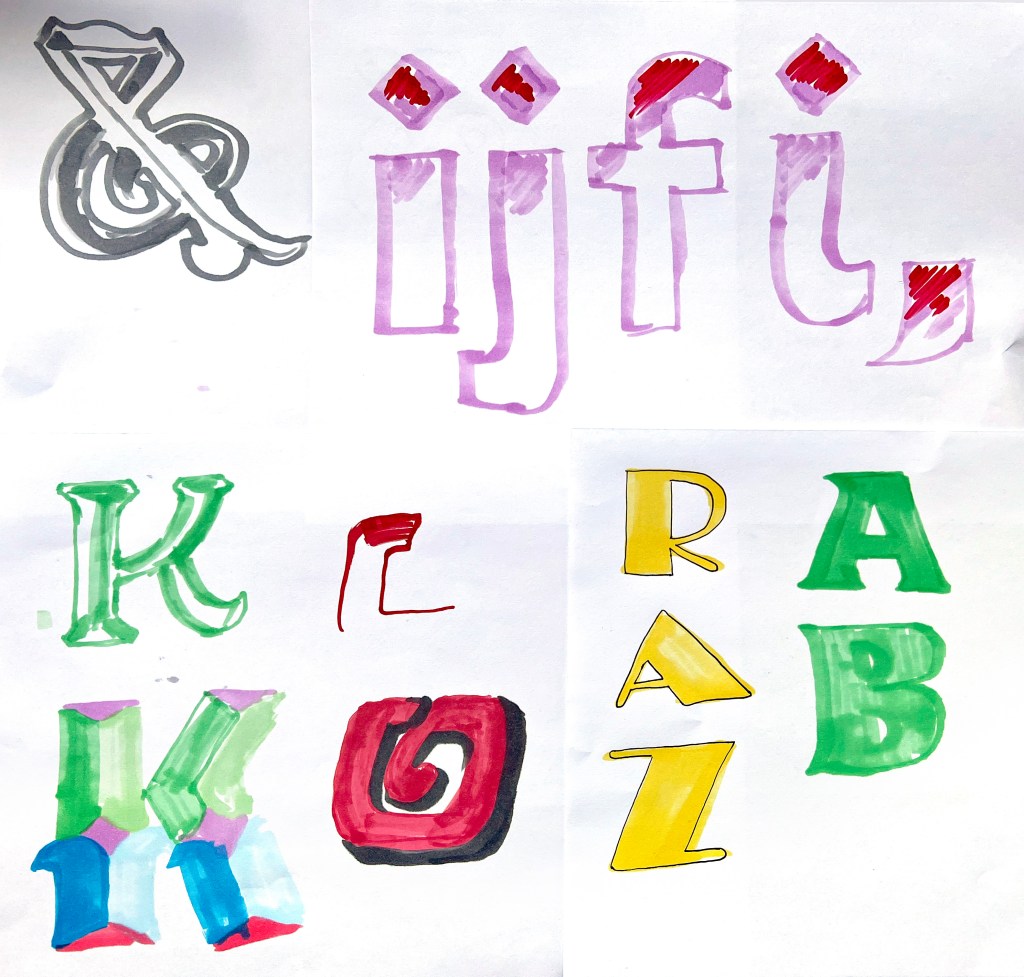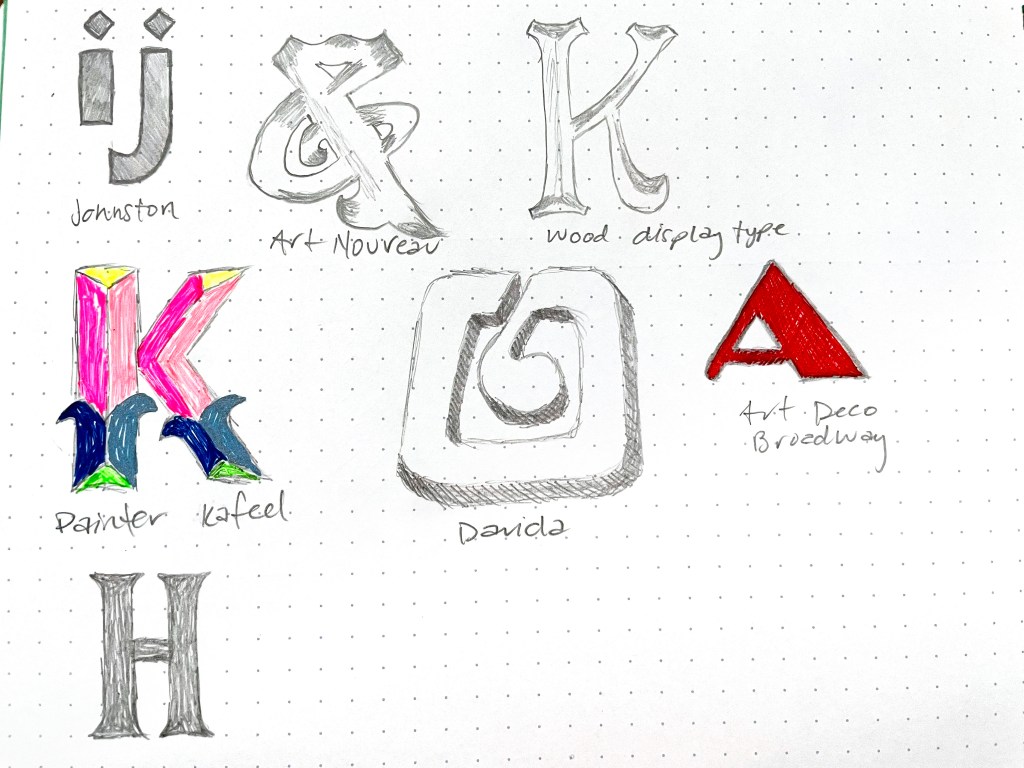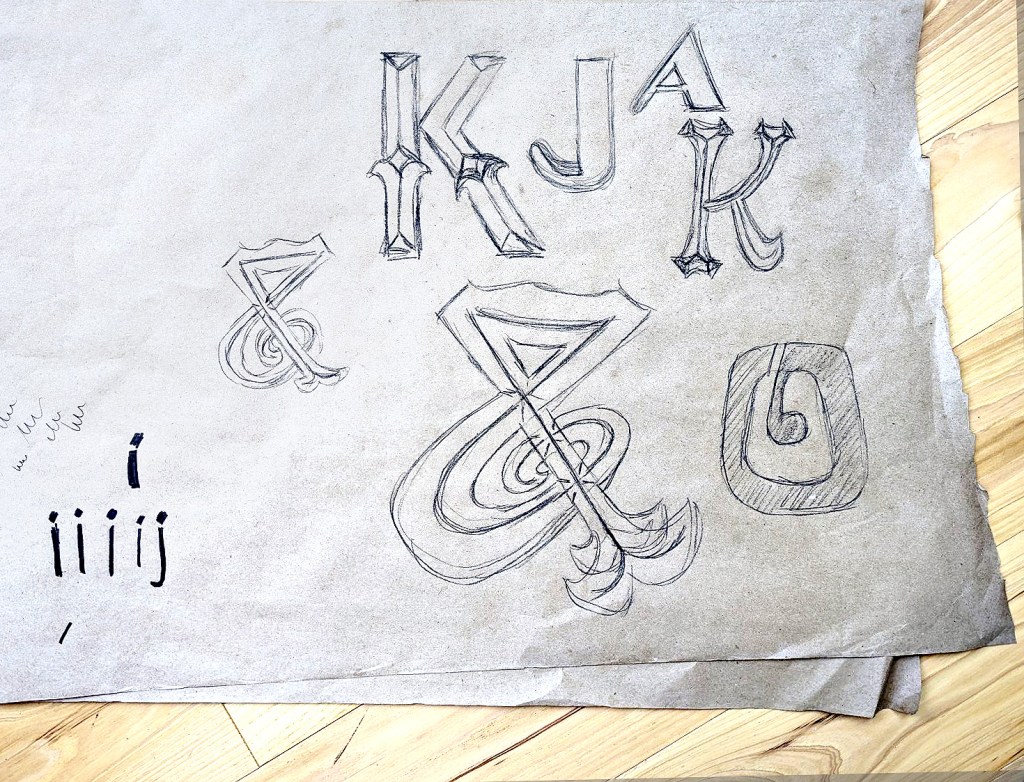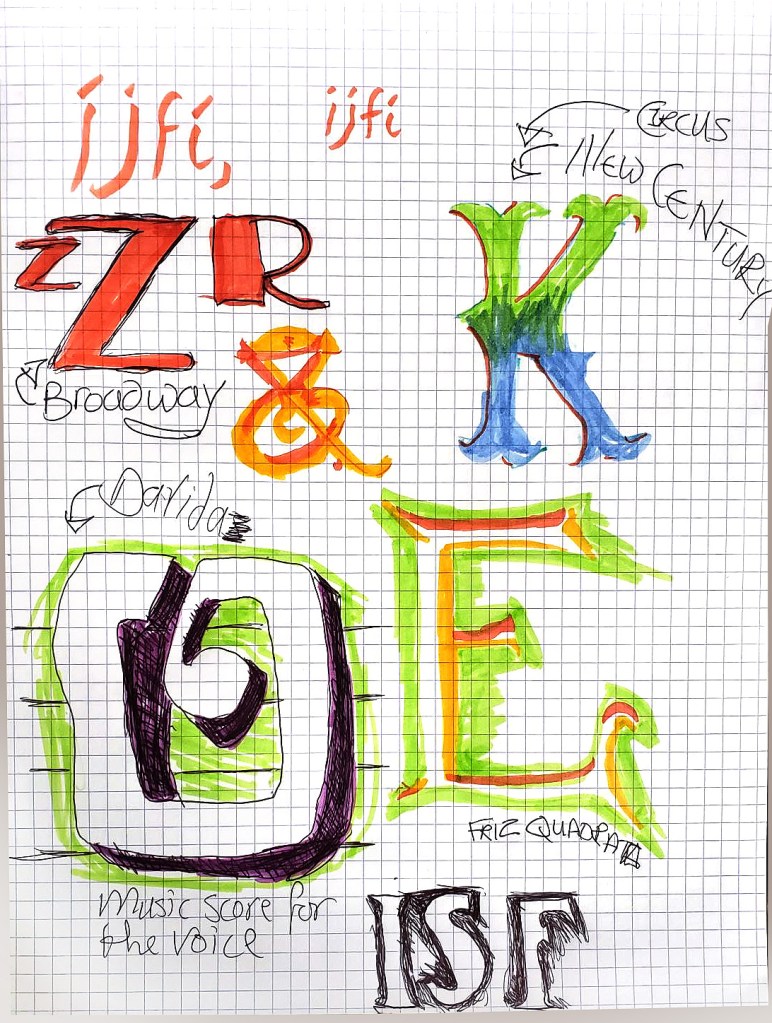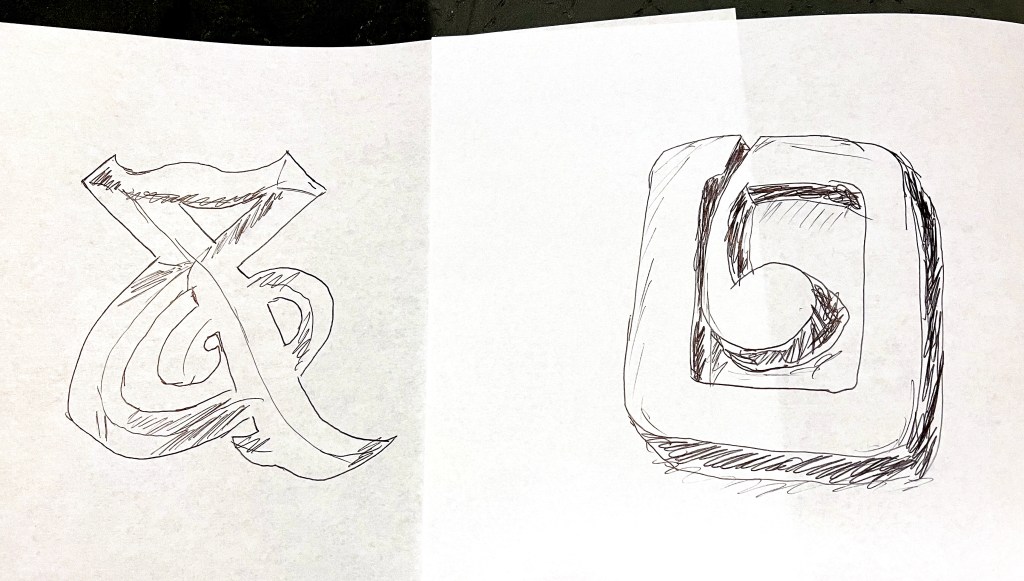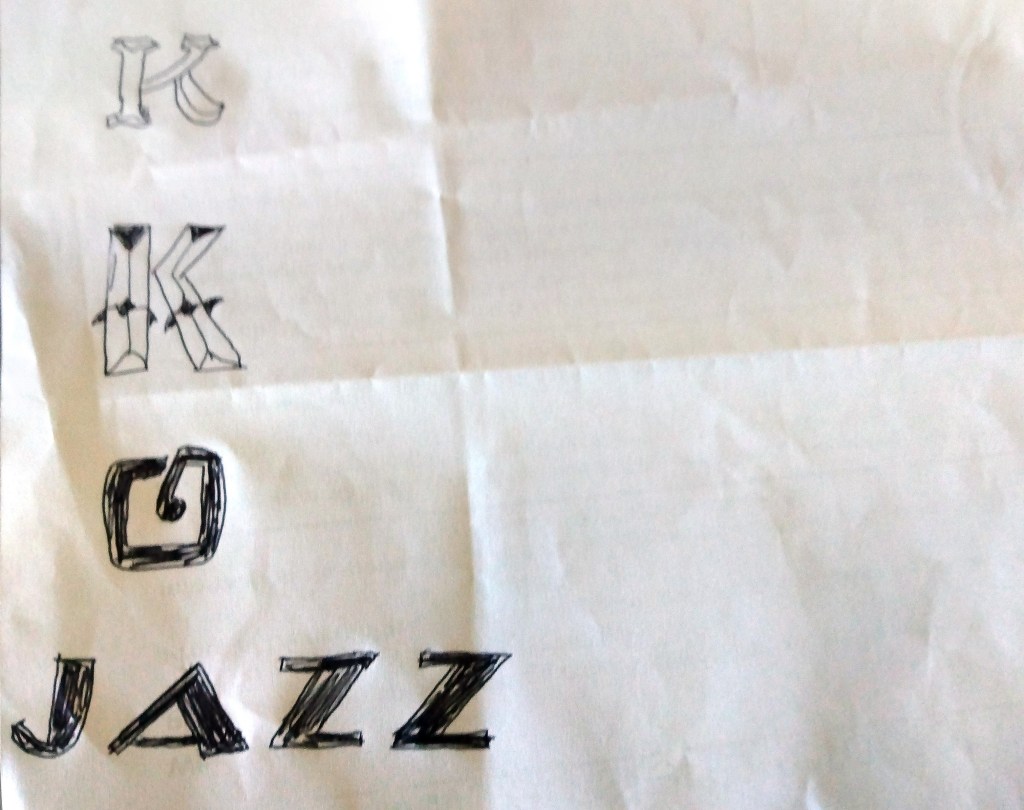
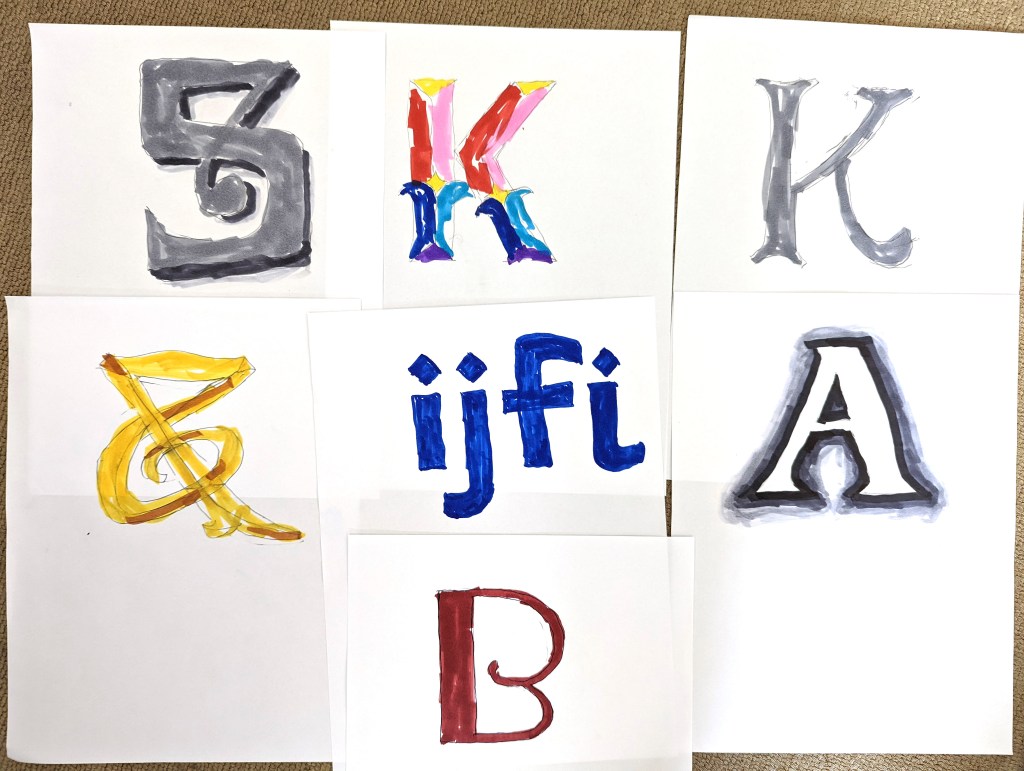
The team from Google Fonts joined me to draw along with a Virtual London Type Safari. We explored the culture and history of a vibrant area in East London, discovering the secrets hidden in the signs over shops, pubs and buildings.
Some of the signs have been hidden for decades and tell stories about the area’s rich history. Many reflect the fashions of different eras—the 1800s, the 1920s, the 1970s and today. Some are practical and utilitarian, others are painted by hand. Look a little closer and many have revealing telltale characteristics for you to spot.
We paused at each sign to do a quick four-minute sketch of its letters. Each sign was paired with a song to bring its atmosphere to life. There were also sniffables and a surprise London-themed snack for one of the participants to try on-camera.